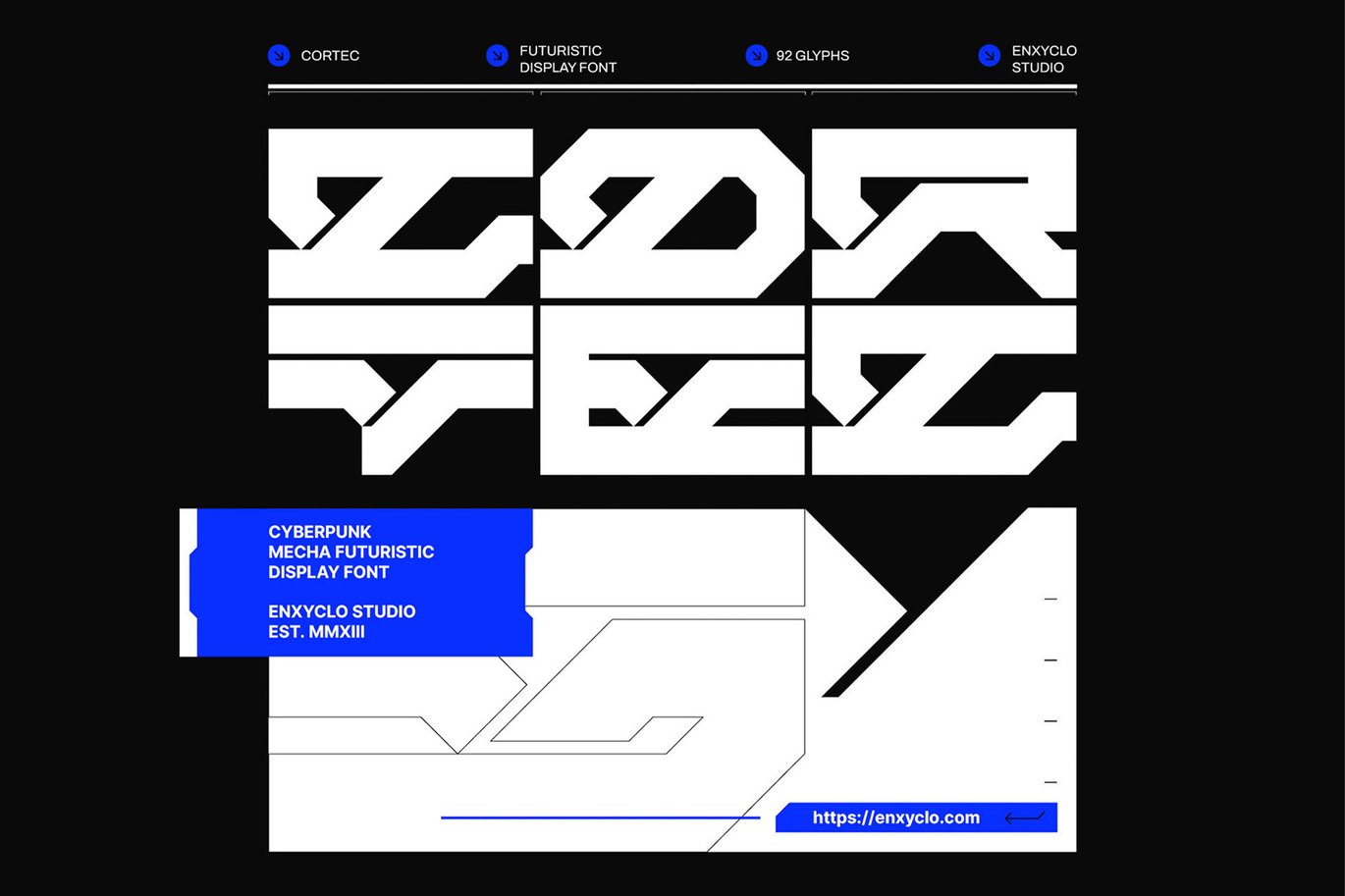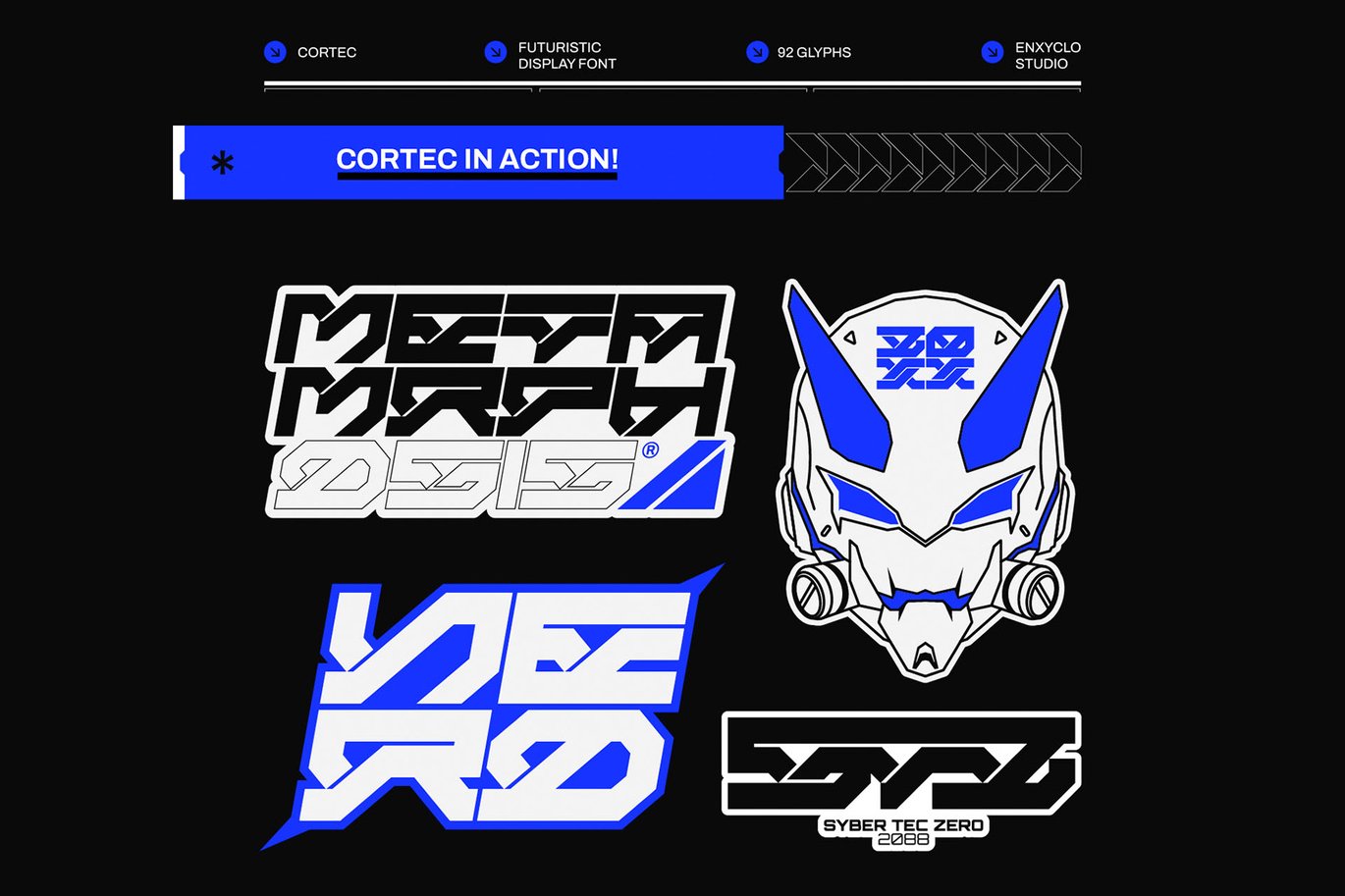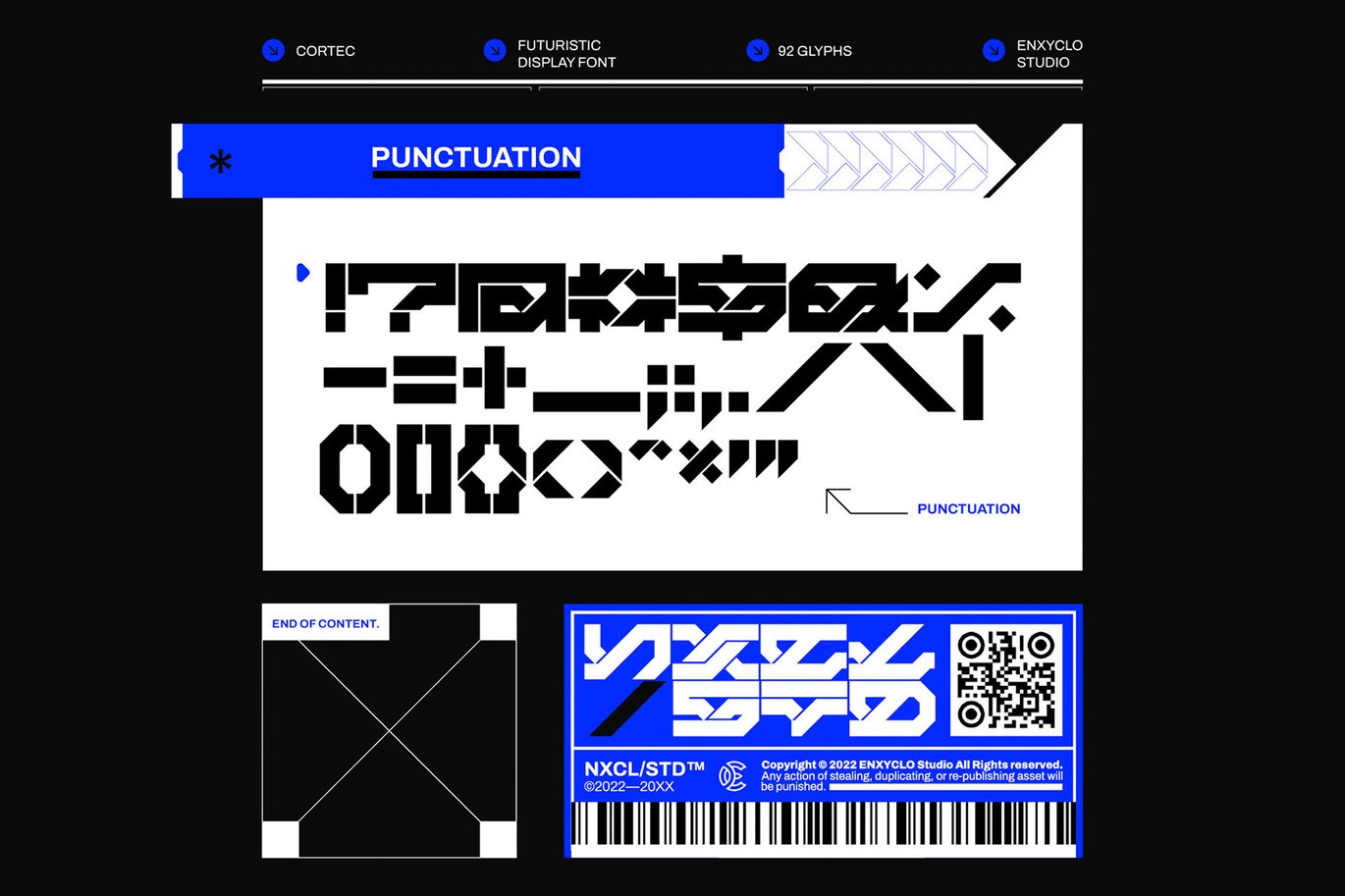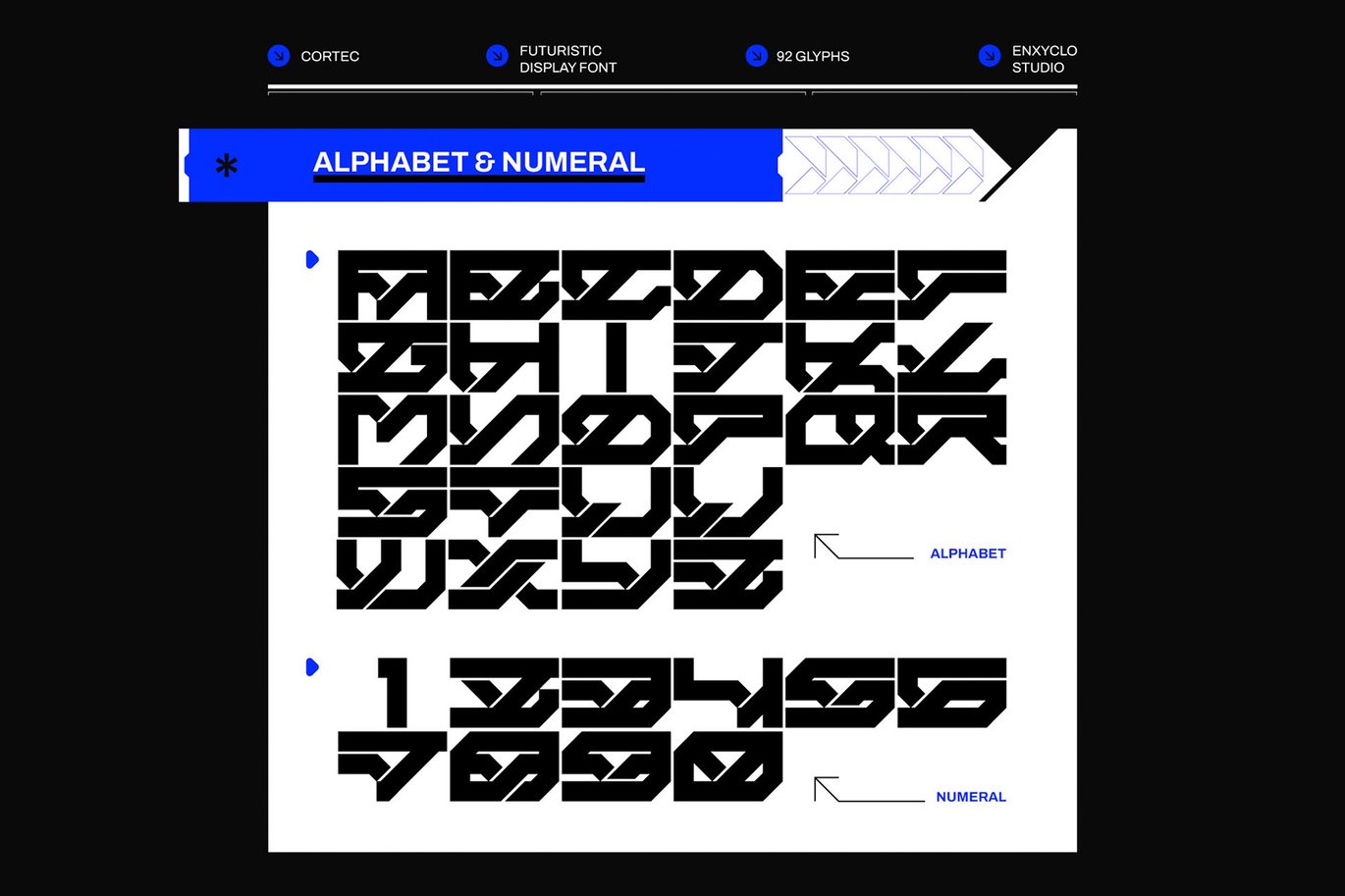
Cortec – Cyberpunk Futuristic Tech Mecha Font
Make your work bolder with CORTEC, the ultimate futuristic mecha typeface inspired by industrial and mecha-robotics. This stunning and powerful font cuts through the noise, bringing a bold industrial edge to your designs. With its sleek and futuristic design, CORTEC is perfect for clothing, album artwork, posters, headlines, and logotypes. Add CORTEC to your design toolkit today and unleash the cutting-edge style of this versatile font.
Contains 96 glyphs
Uppercase, Numeral, Punctuation & Symbols